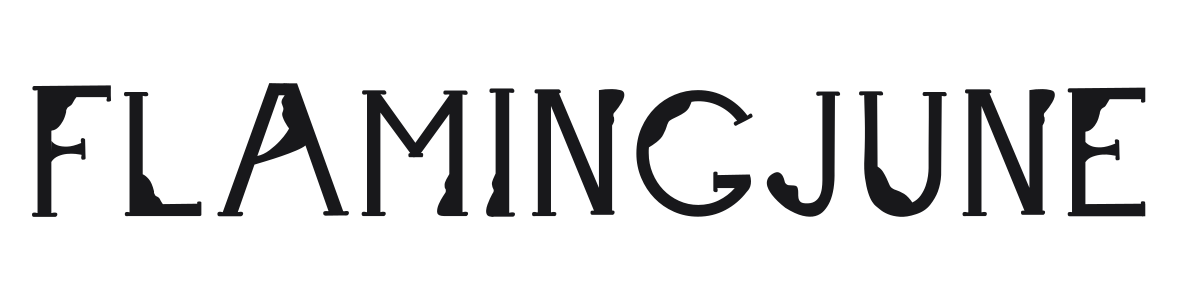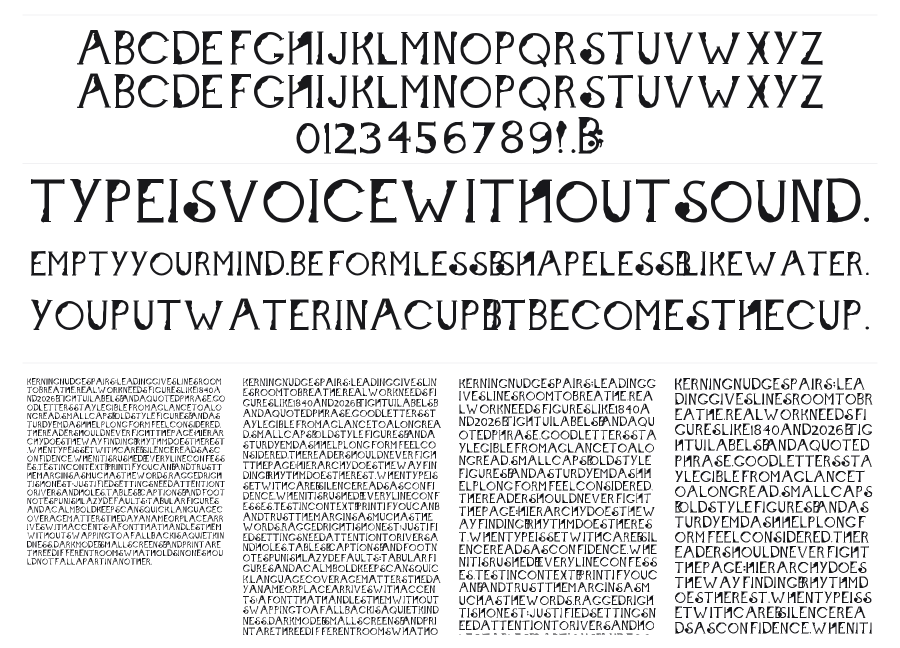
Flaming June
by Kiara Sanchez
Flaming June is an Art Nouveau-inspired display serif with dramatic stroke contrast and flame-like organic details woven into each character. The letters carry a dark, handcrafted quality with sharp pointed terminals and heavy tapered stems that feel simultaneously gothic and decorative. It reads best large, where those idiosyncratic construction choices become the point.